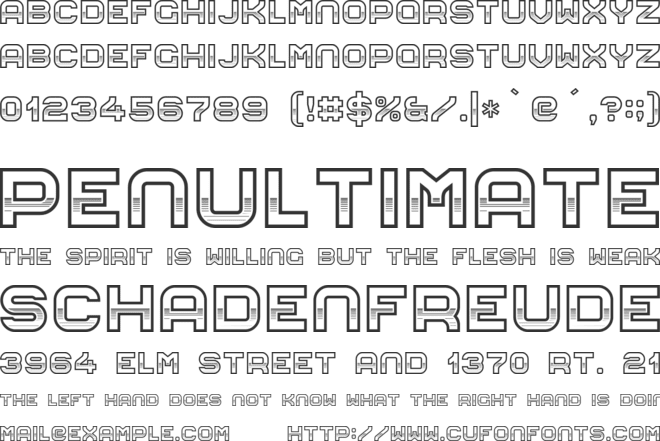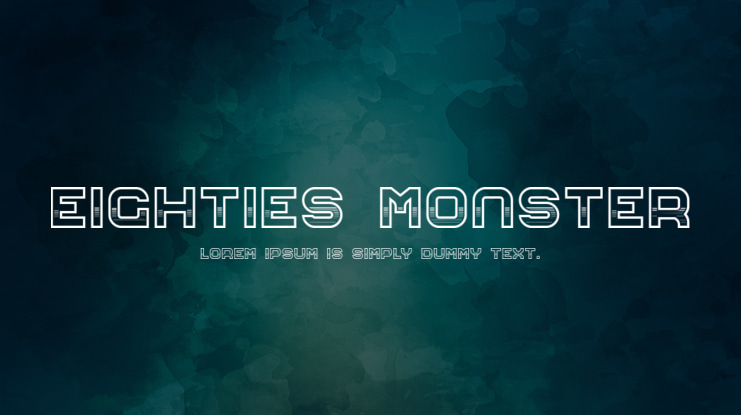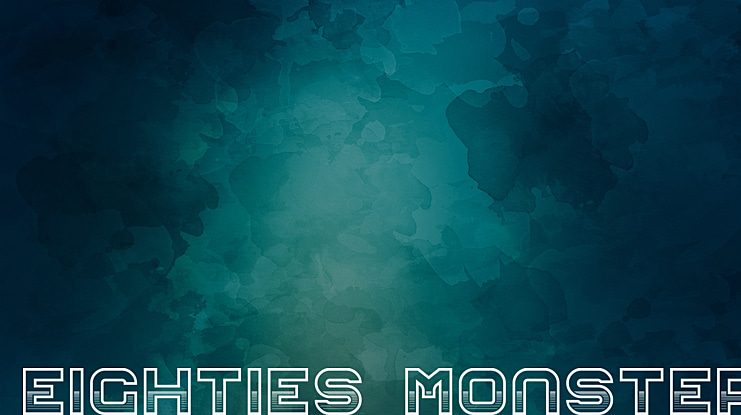
Eighties Monster Font
A shiny pseudo-sci-fi font with all its eighties glory and kitchiness. The shape of the letters is inspired by 8bit demo scene.